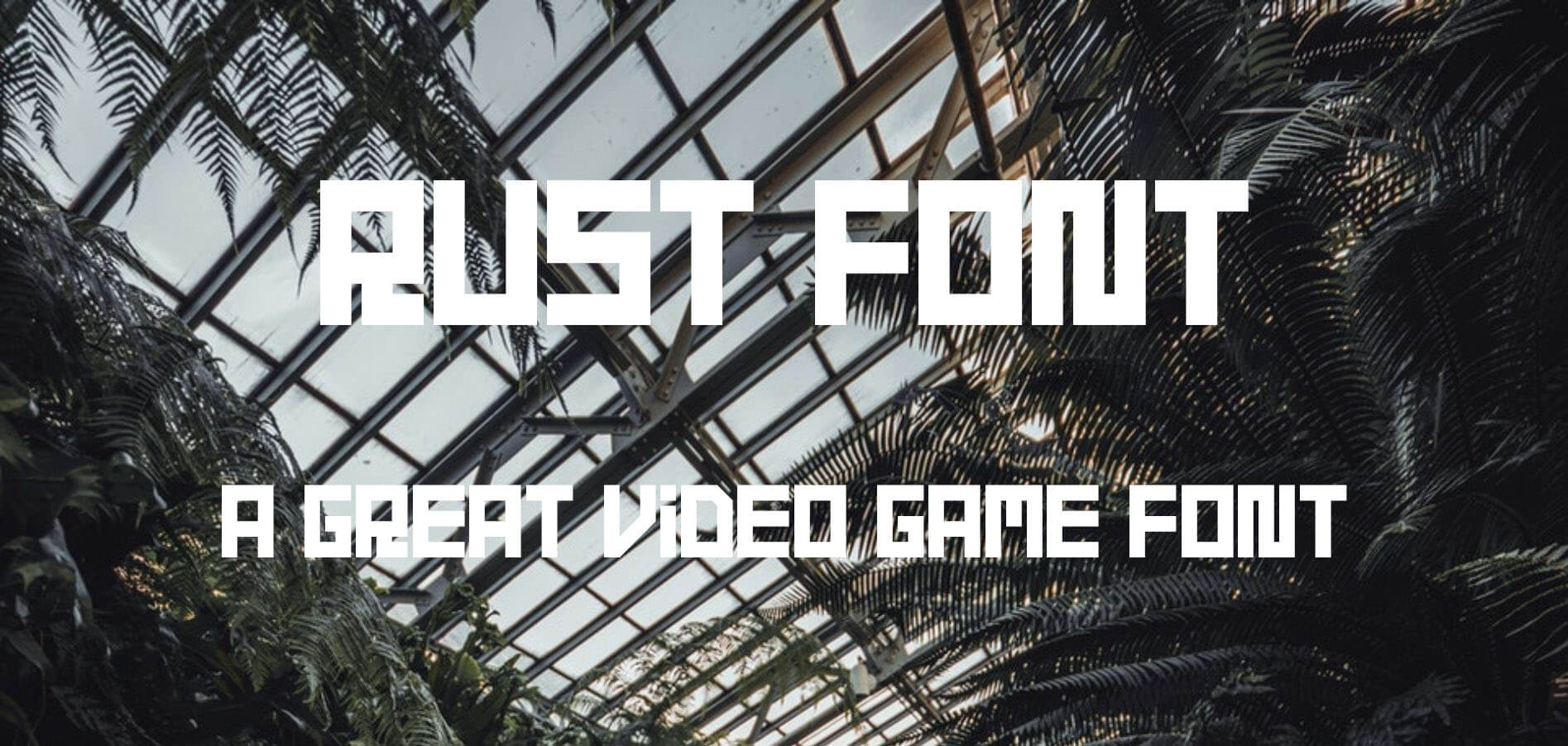
Rust Font Family is a techno typeface that is a member of the largest Intro rust family that contains a total of 214 fonts. This typeface has been inspired by the most popular survival game named Rust.
The font used for this survival game is most similar to the Intro Rust font. It has wonderful and unique glyphs and stylish characters including uppercase, lowercase, numbers, symbols, and some special characters that are mostly used for gaming and movies purposes.
Rust Font
StyleTechno